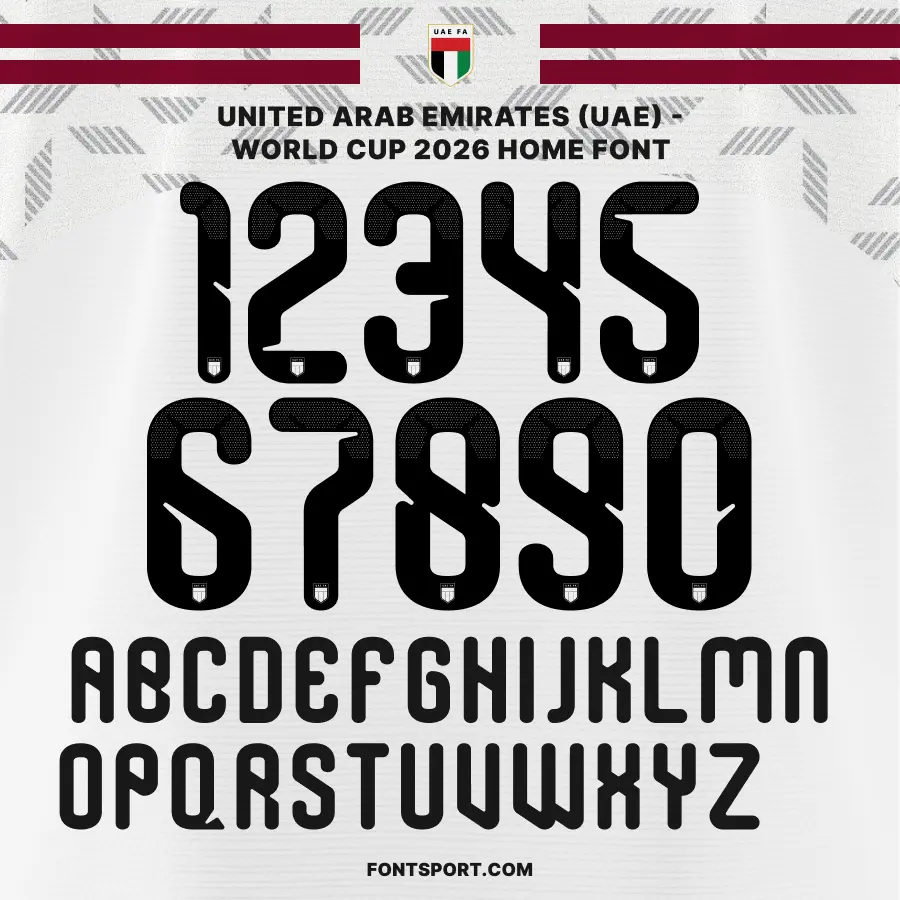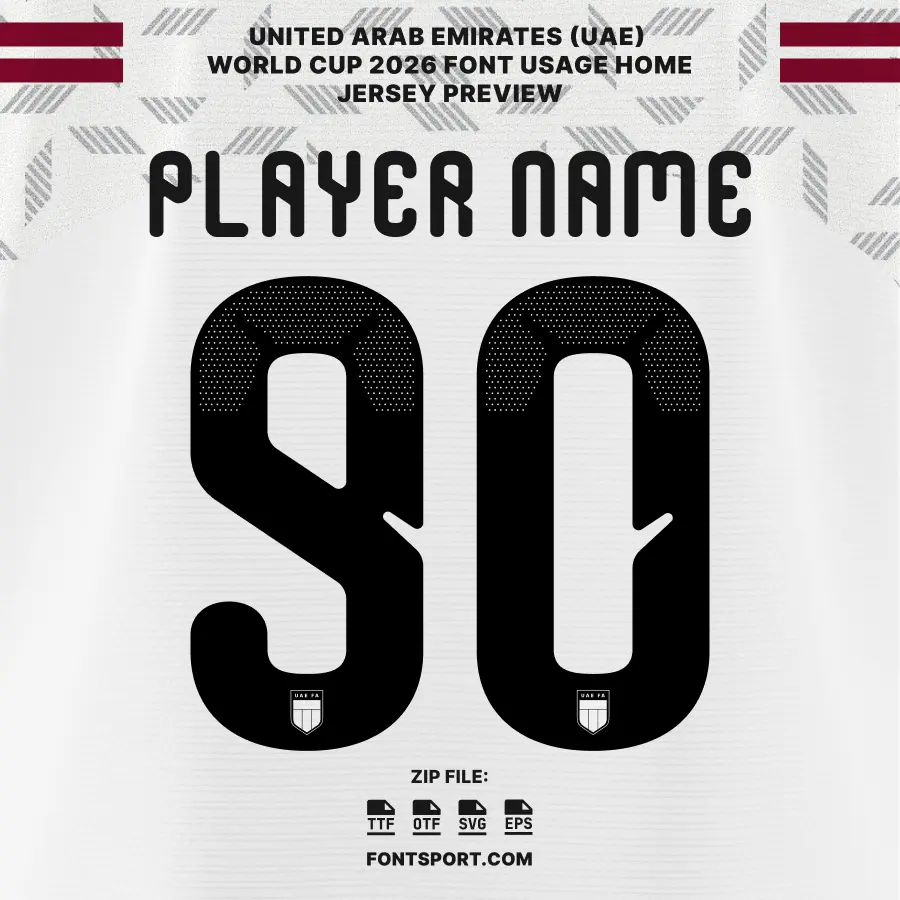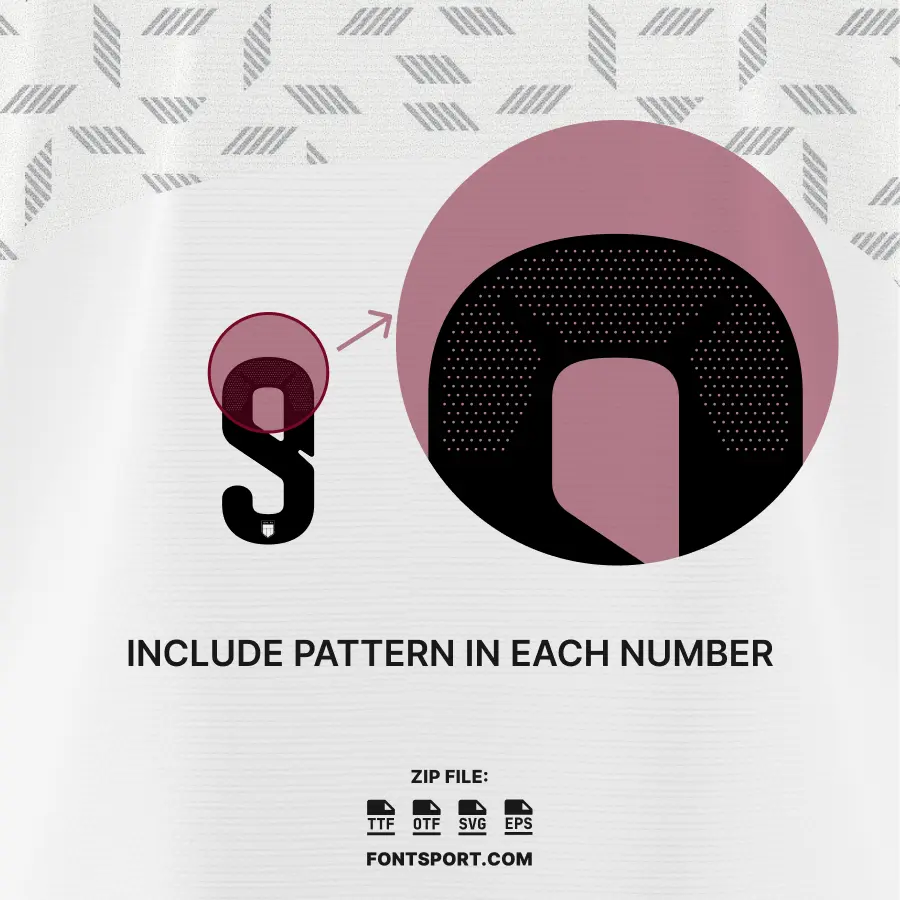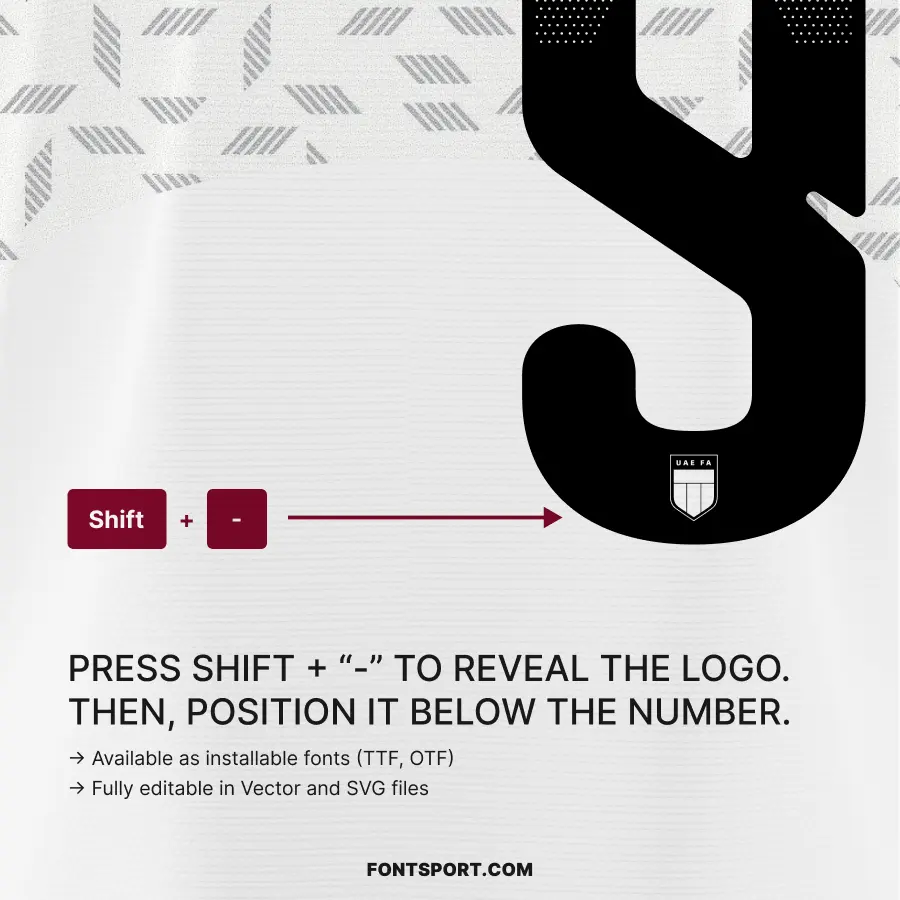
The UAE World Cup 2026 Home Font Kit brings the clean, modern, and confident visual style of the United Arab Emirates national team into your design projects. The typography reflects the team’s strong geometric aesthetic, often seen in Middle Eastern sports branding. Because of its sharp angles and bold strokes, this typeface suits jersey names, numbers, posters, fan-merch artwork, banners, and digital football graphics.
You can use this font in both digital and print environments. It provides strong readability and a clear football character, which makes your designs stand out. Furthermore, the style adds a professional look that fits tournament-themed content.
This typeface supports a wide range of creative uses, including football posters, match-day graphics, product packaging, apparel designs, and social-media content.
This sport font offers strong visual impact through clean shapes and bold structure. It helps you build consistent jersey layouts and match-day designs. In addition, the letters remain sharp at any size because vector files are included. As a result, this font works well for football fonts, sport fonts, and font for jersey applications.
You can create modern and dynamic visuals without complexity. The built-in crest glyph also saves time, giving you instant access to UAE’s recognizable emblem for your graphics.
Regarding their 2026 home jersey, early kit reports suggest that the design features a crisp white base with bold red detailing and an updated geometric shoulder pattern inspired by the federation crest. This modern look aligns with the UAE’s ambition to present a sharp, competitive identity on the global stage.
This font kit captures the spirit of that design language, giving creators a typography style that matches the clean, modern, football-ready visual identity fans expect.